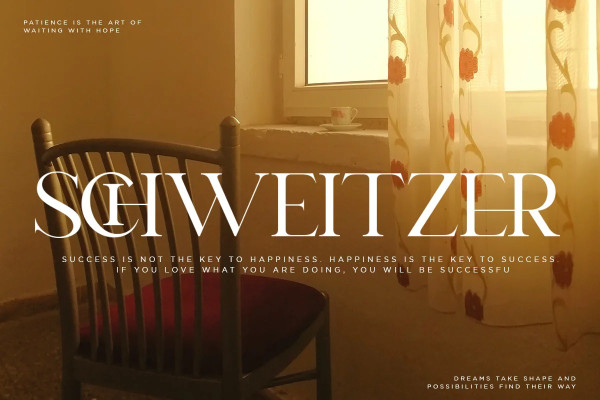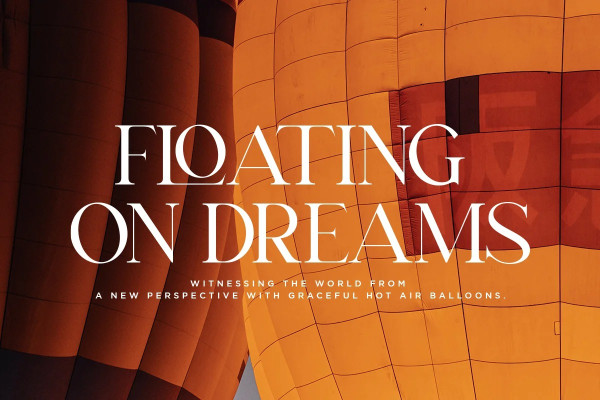
CARY TYPEFACE
Cary Typeface Is A Classy Serif Font with Stylistic Alternates and Ligatures. Suitable for any design needs : logo, branding, modern advertising design, logos, poster quote, book / cover Title, editorial design, website / blog, card, t-shirts,…